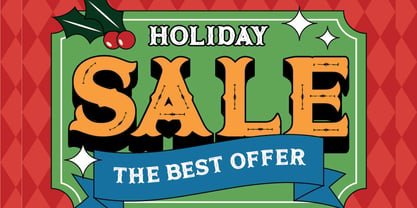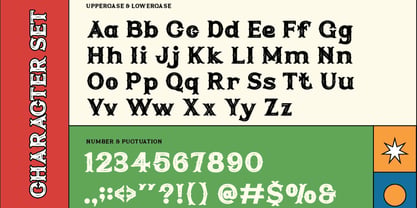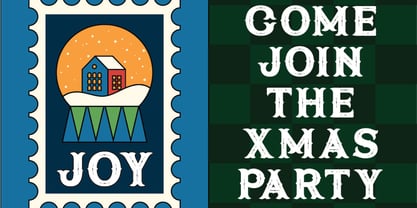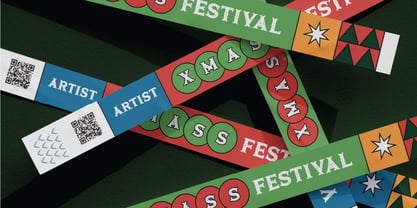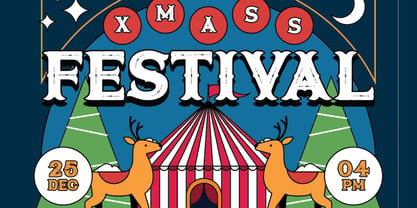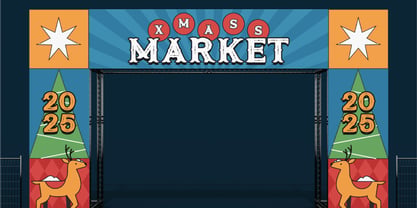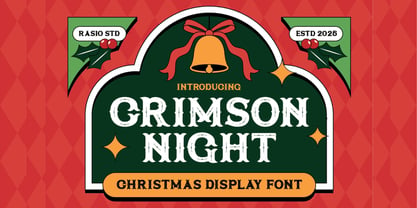
Crimson Night
The Crimson Night Font Family was designed by Fajar Indra and published by Rasio Studio. Crimson Night contains 1 styles. More about this family
Crimson Night is a bold Christmas display font that brings a cheerful retro aesthetic to your festive designs. Its textured letterforms and vintage-inspired shapes create a handcrafted warmth perfect for the holiday season. Combining playful serifs, decorative edges, and nostalgic charm, Crimson Night evokes the spirit of classic Christmas posters and seasonal packaging. Ideal for holiday branding, retro signage, greeting cards, and promotional materials, this typeface stands out with a joyful, handcrafted character full of festive personality.
Crimson Night